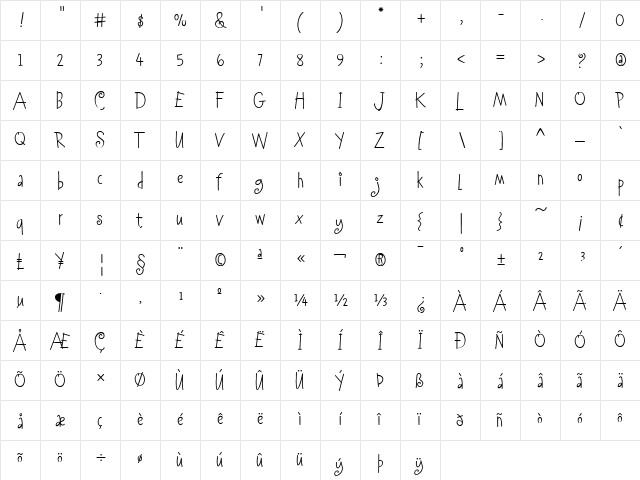
Peach Fuzz Regular Font Preview
Peach Fuzz Regular
Design Context for Peach Fuzz Typeface
Peach Fuzz is a composed and adaptable typeface that performs quietly and consistently across a wide range of design contexts.